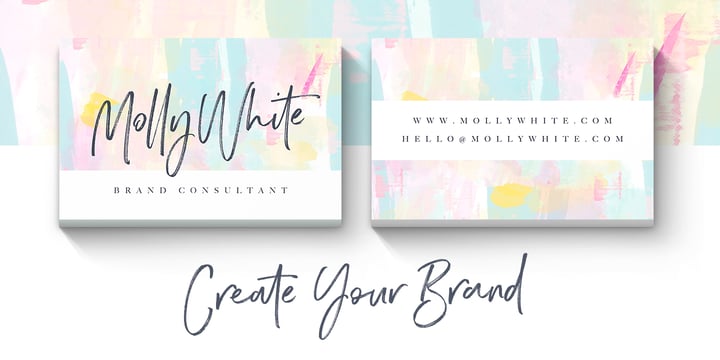
Wild Spirit
The Wild Spirit Font Family was designed by Sam Parrett and published by Set Sail Studios. Wild Spirit contains 2 styles and family package options. More about this family
Introducing: Wild Spirit! A carefree and untamed brush font with a natural flow. Handmade with long organic strokes, Wild Spirit isn't held back by any boundaries or expectations. It's the perfect choice for personal branding projects, handwritten quotes, homeware designs, product packaging - or simply as a modern & stylish text overlay to any background image. Wild Spirit includes two sets of each character, and 25 ligatures (double letters) - which combined offers you a huge range of customisability and layout options, and allows you to produce a very organic and natural handwritten flow to your text. It also comes with a bonus set of 14 swashes & arrows to assist your project.